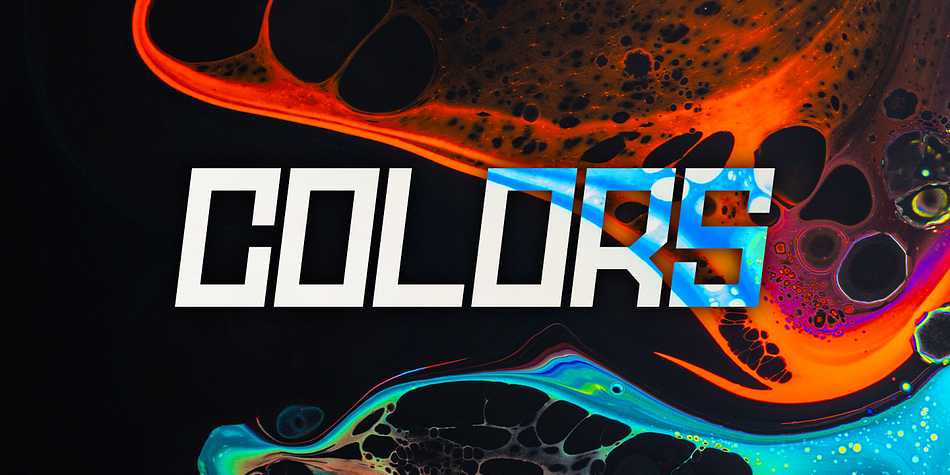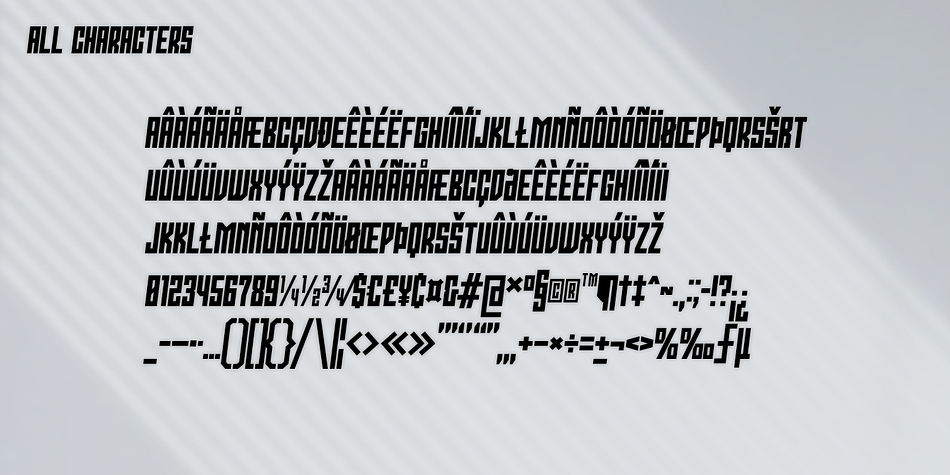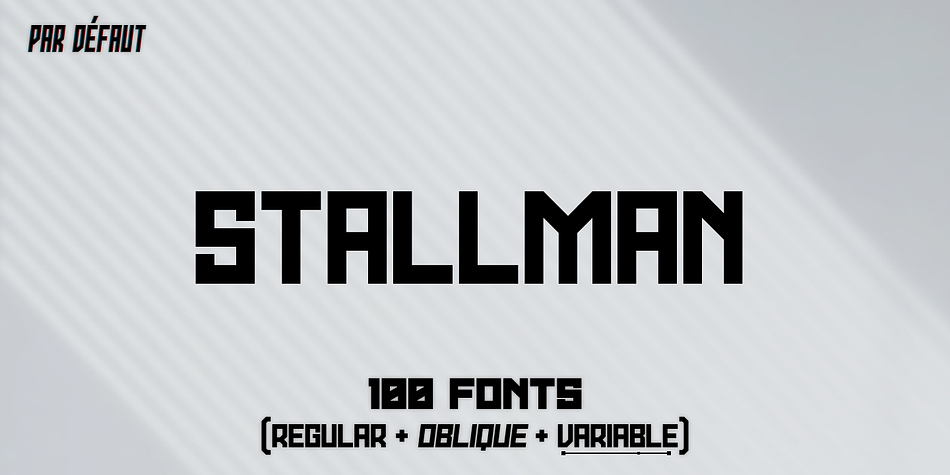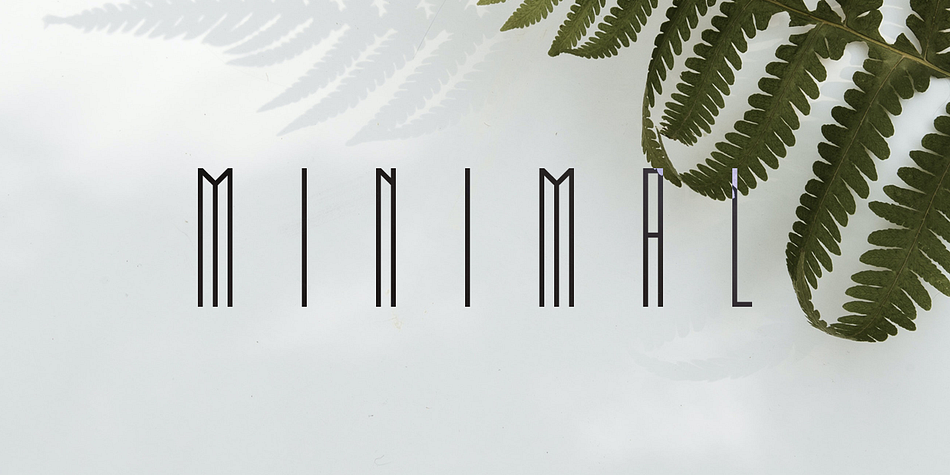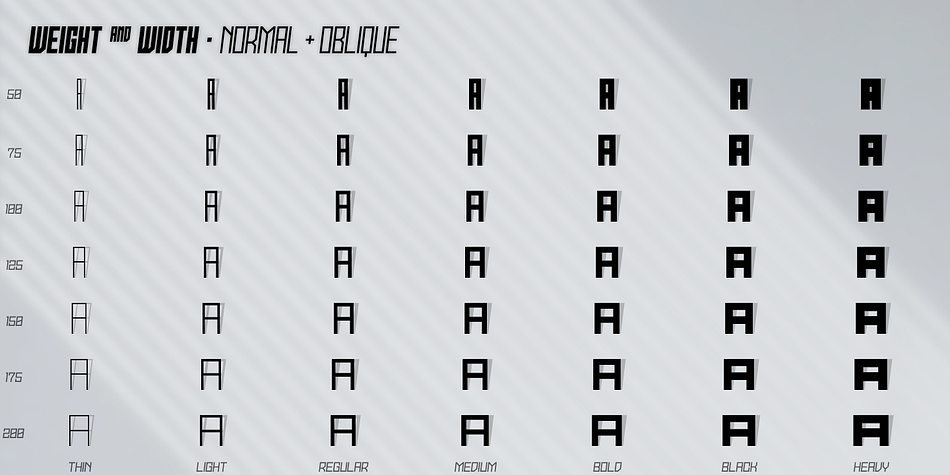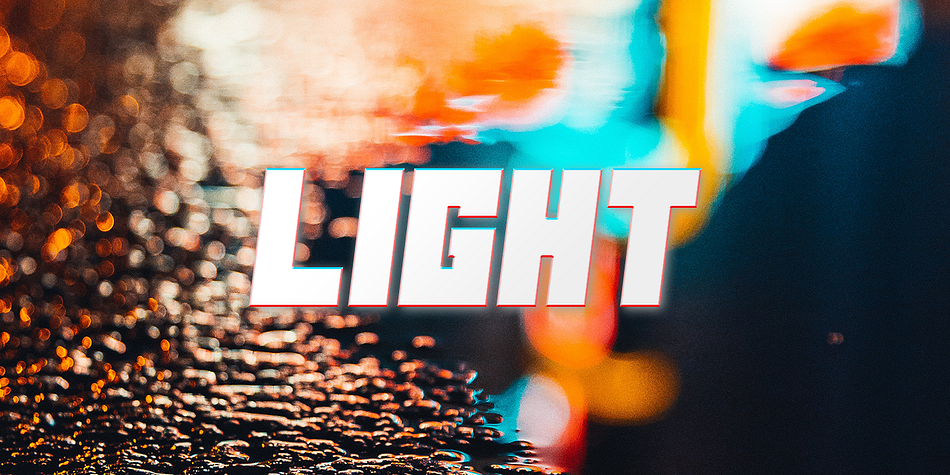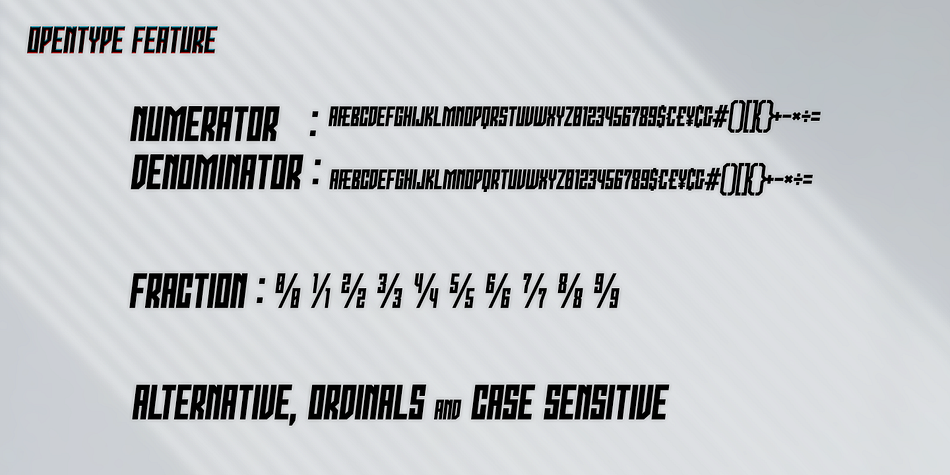
STALLMAN
Stallman is a display sans font family. This typeface has one hundred styles and was published by Par Défaut.
Stallman is a Display font family containing 100 Fonts (Regular, Oblique and Variables).
It’s a perfect font for titles
There are also 6 OpenType features (Numerator; Denominator; Fraction; Case Sensitive; Ordinals; Access All Alternates)